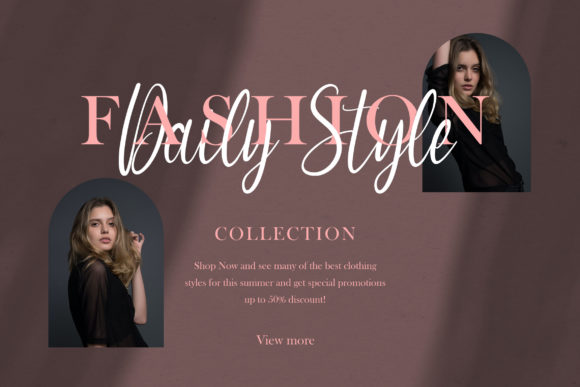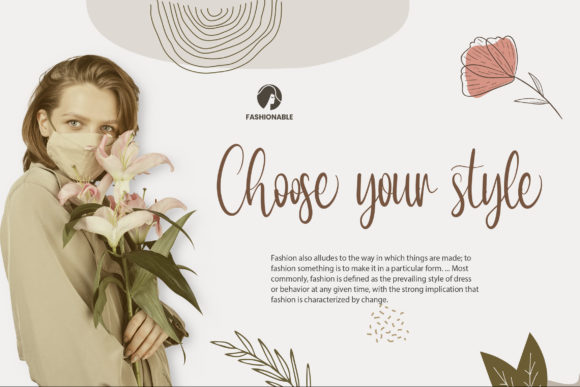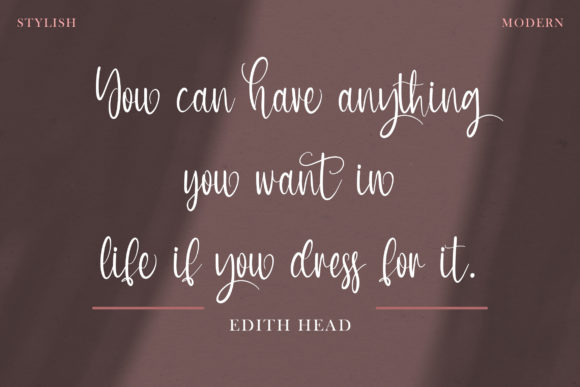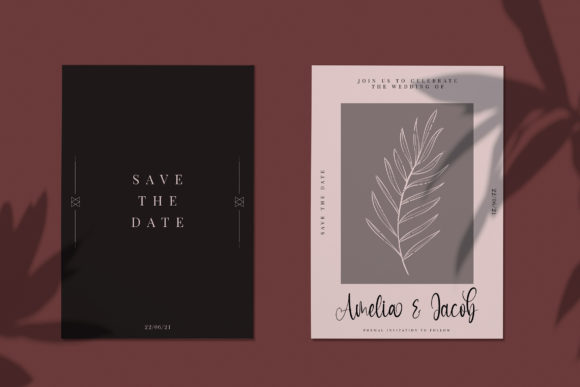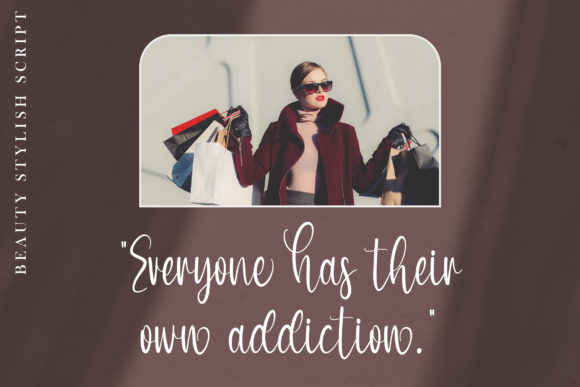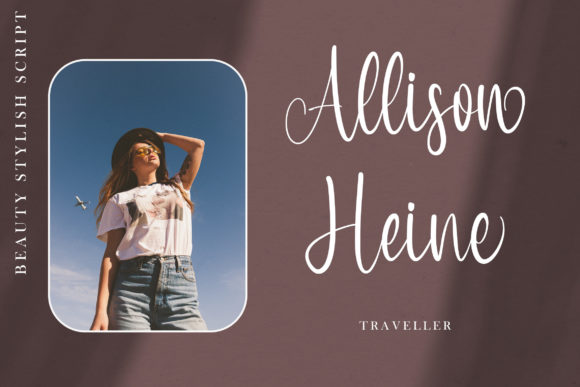
The Ultimate Guide to Austyn Font: Elevate Your Designs with this Fashionable Script Font
Austyn is a fashionable and asymmetrical script font that’s perfect for designers, crafters, and creative hobbyists looking to add a touch of sophistication to their work. In this article, we’ll dive into the world of Austyn Font, exploring its features, how to use it, and what makes it so special.
A Personal Review of Austyn Font
- ✨ Unique and stylish: Austyn Font has a one-of-a-kind asymmetrical design that’s sure to make your work stand out.
- ✅ Highly versatile: Whether you’re working on a logo, brochure, or social media graphics, Austyn Font adapts seamlessly to any project.
- 💫 OpenType features: Austyn Font comes with a range of OpenType features, including glyphs and stylistic alternates, giving you endless creative possibilities.
While Austyn Font is an amazing addition to any design library, there are a few things to keep in mind:
- ⚠️ Limited use in body text: Due to its script nature, Austyn Font is best used for headlines, titles, or short paragraphs. For longer texts, a more traditional font might be more suitable.
- 🤔 Pairing with other fonts: As with any script font, pairing Austyn with other fonts can be a bit tricky. Experiment with different combinations to find the perfect match.
The Backstory of Austyn Font
Austyn Font was designed by a team of creatives who wanted to create a unique and stylish script font that would elevate any design. Inspired by the world of fashion and art, Austyn Font is the perfect blend of elegance and edginess.
| Author | Arendxstudio |
Q: What makes Austyn Font so special?
A: Austyn Font’s unique asymmetrical design and range of OpenType features make it a versatile and stylish addition to any design library.
Q: Is Austyn Font suitable for body text?
A: While Austyn Font is amazing for headlines and titles, it’s not recommended for longer body text. A more traditional font would be more suitable.